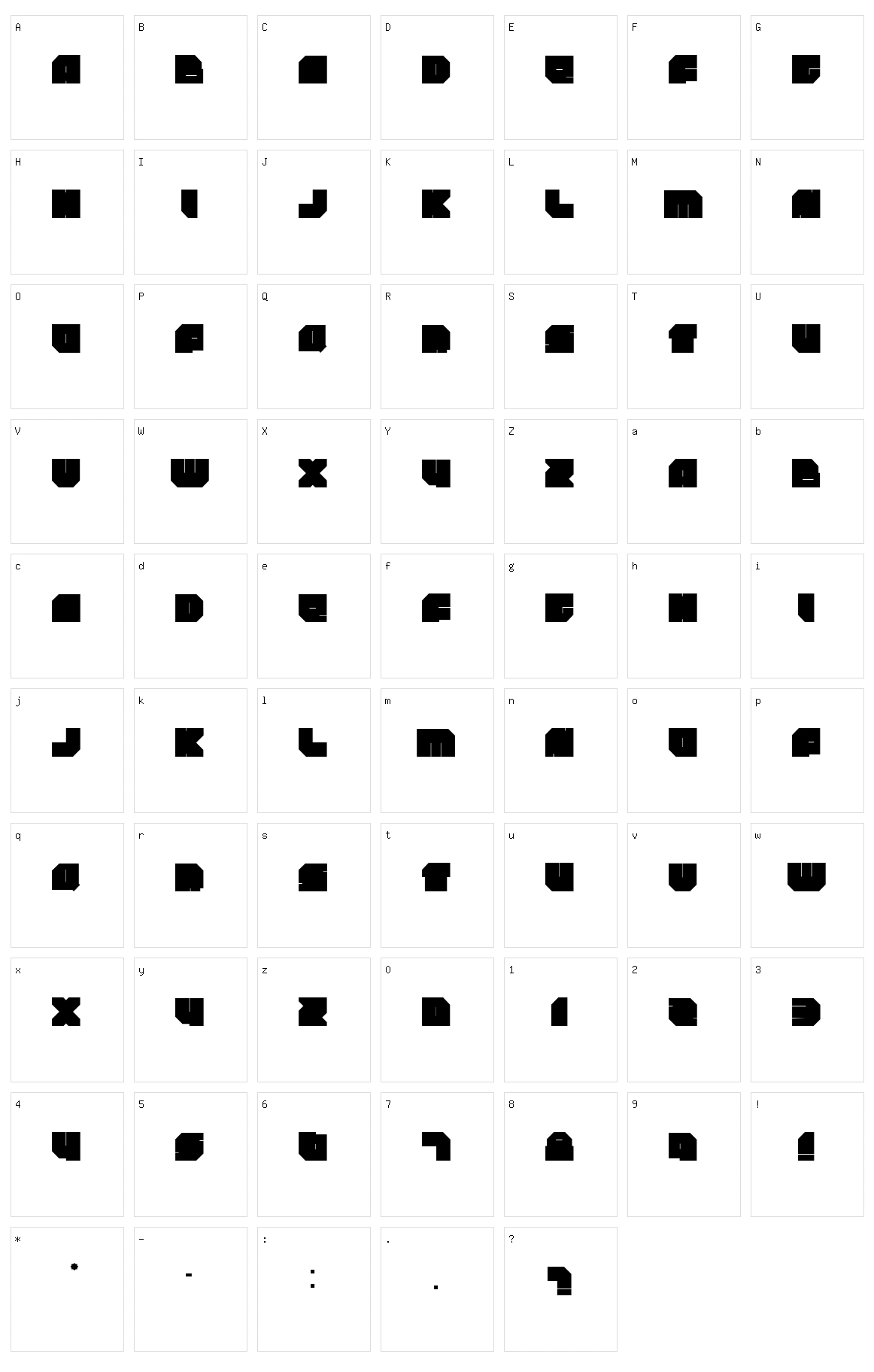
The free font Rockdafonkybit is carefully designed by Less Industries, showcasing a thoughtful balance of creativity and usability and falls under the Square font style. When you download the ZIP file, it contains only 145.04 KB of font files, making it lightweight and quick to download. Please review the license details below to understand permitted usage and distribution rights. If license information is not available, we recommend using this font for personal projects only or contacting the author directly for commercial usage permissions.